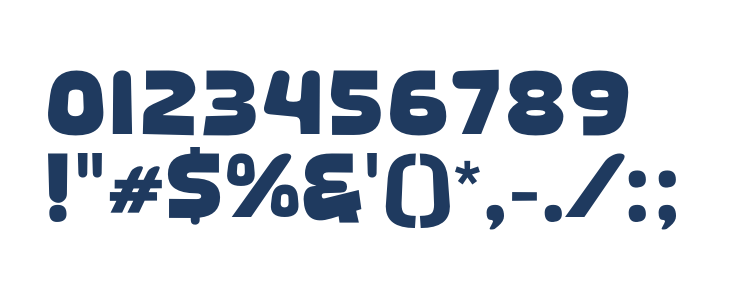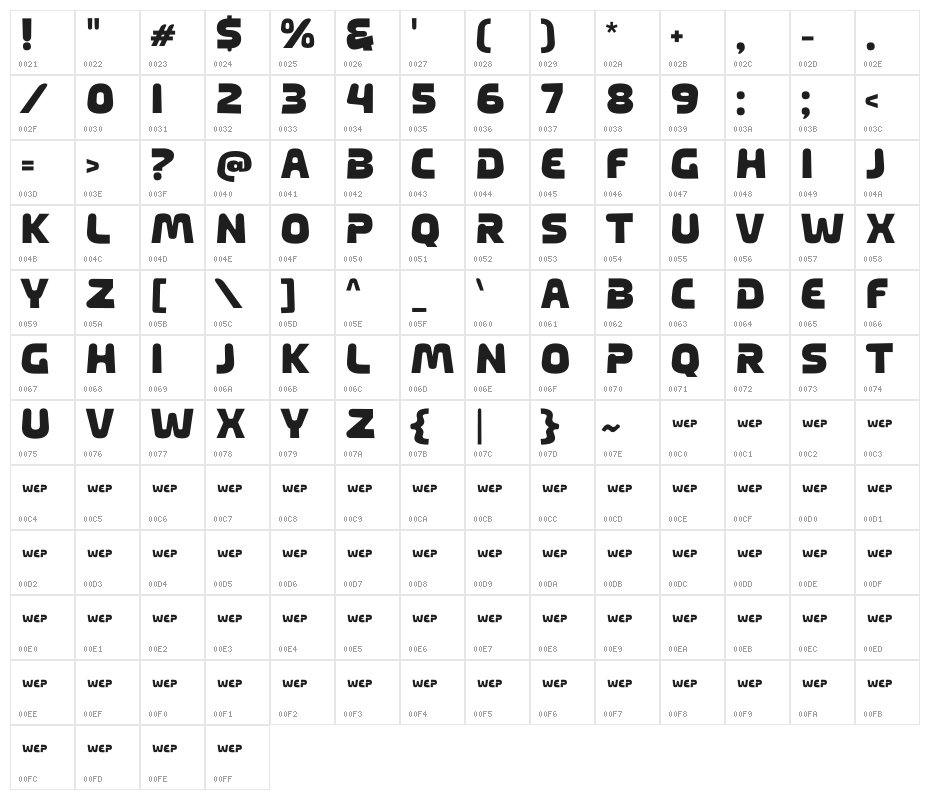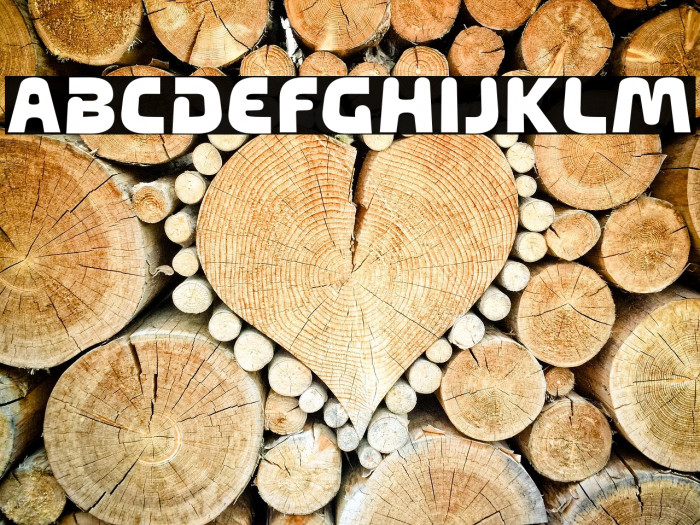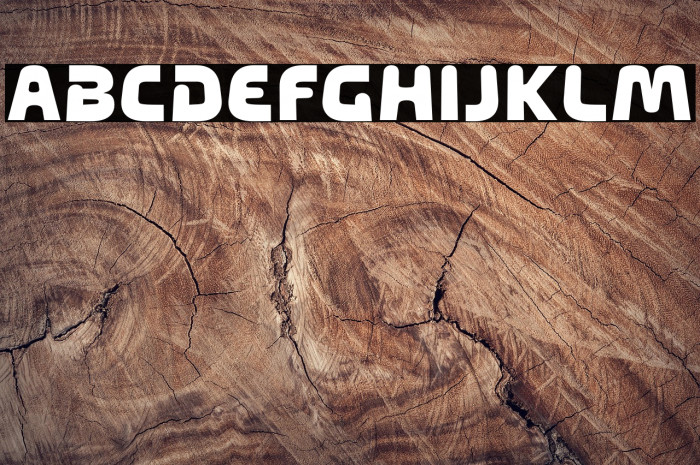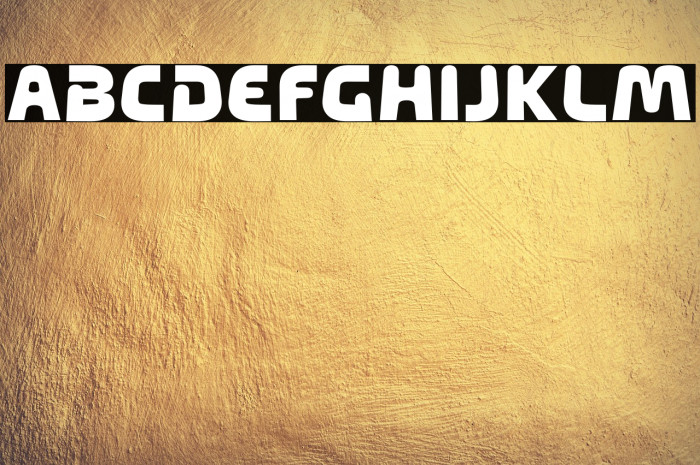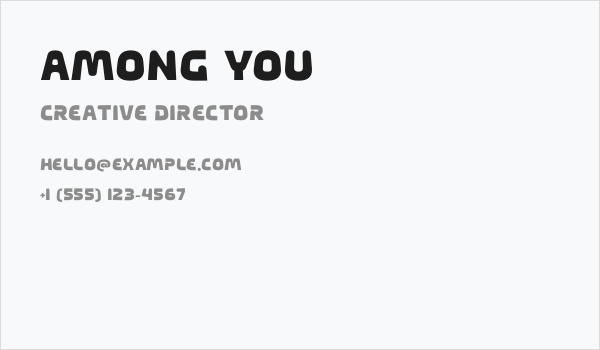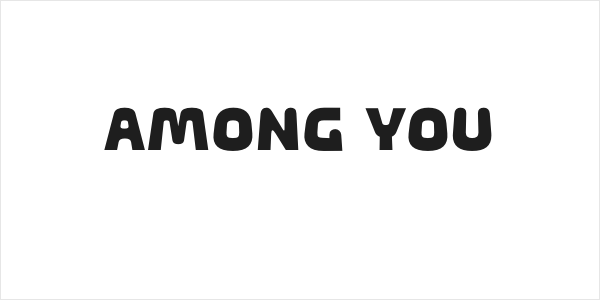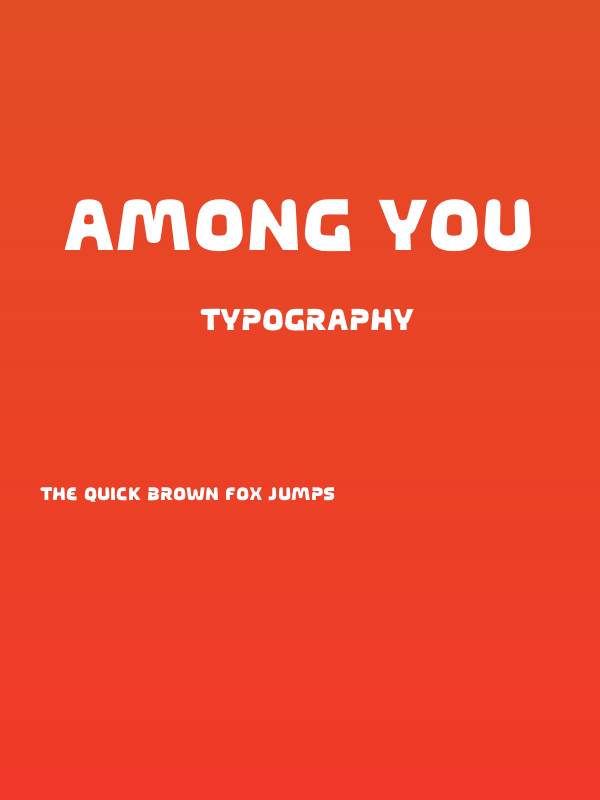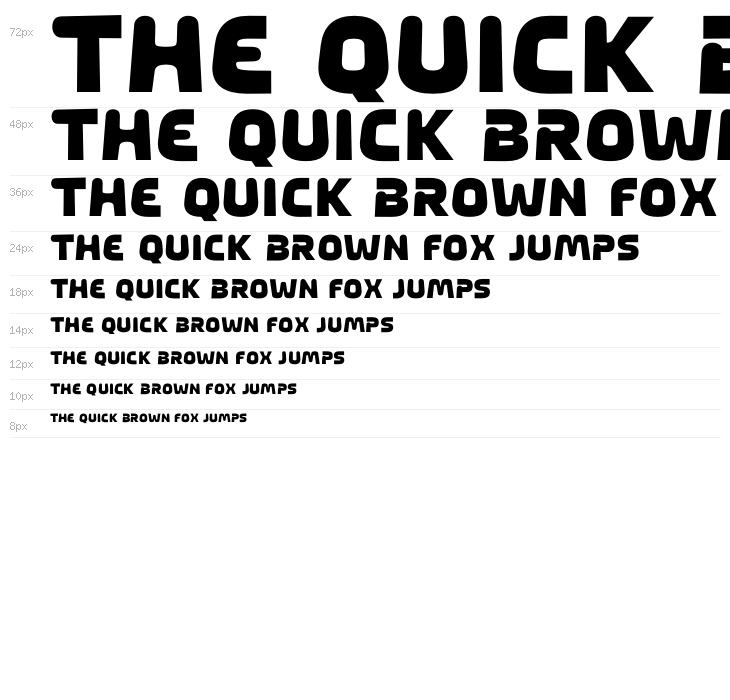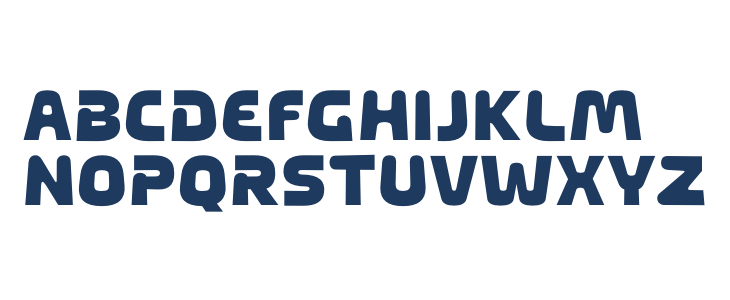
Among You Font
Among You Description
This font features a bold and rounded style with a playful and modern aesthetic. The characters are uniformly thick, giving it a strong presence and making it highly legible. The rounded edges soften the overall look, adding a friendly and approachable feel. The uppercase and lowercase letters maintain a consistent weight and width, ensuring uniformity across different text sizes. The numerals and special characters are designed to match the boldness of the letters, providing a cohesive appearance. This font is well-suited for projects that require a contemporary and engaging look.
| Proposed Projects | Ideal for branding, advertising, children's books, and digital media. |